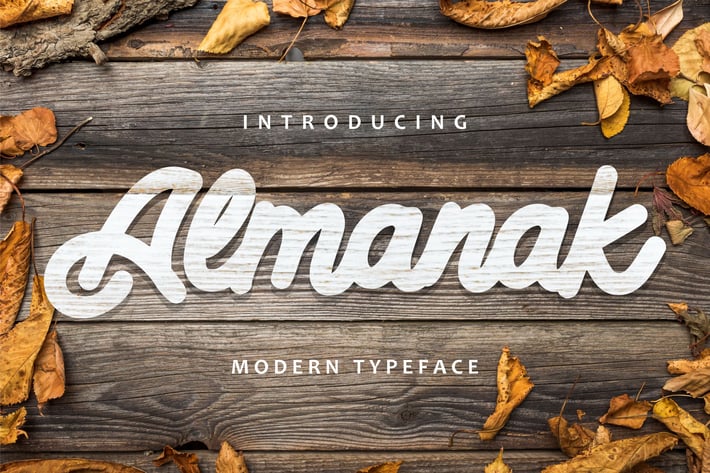
Almanak - Modern Typeface
So beautiful on invitation like greeting cards, branding materials, business cards, quotes, posters, and more!
Fonts include Multilingual Support